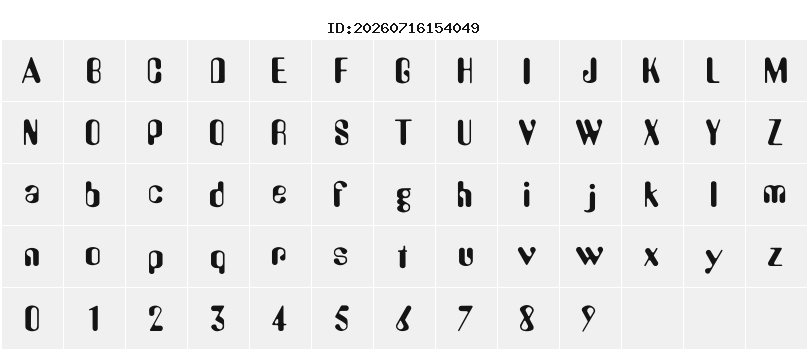
• Font Name: Amelia-Normal
• Full Font Name: Amelia-Normal
• PostScript Name: Amelia-Normal
About Amelia-Normal.ttf
Amelia-Normal.ttf is a modern, elegant sans-serif font designed for ultimate readability and visual harmony. Perfect for branding, headlines, web design, and print materials.